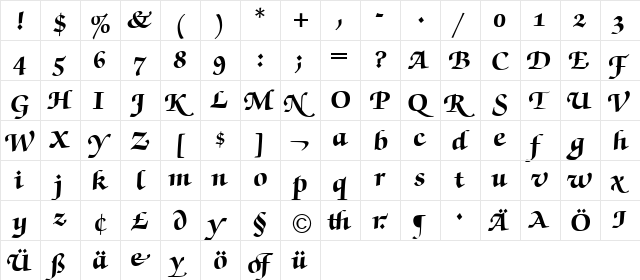
ZapfChancerySwashBQ-Bold Medium
Design Context for ZapfChancerySwashBQ-Bold Typeface
ZapfChancerySwashBQ-Bold flows with the natural rhythm of handwritten lettering, making it ideal for designs that call for warmth and personal expression. Its bold stroke weight gives it real presence on the page.
Font Pairing: Combine ZapfChancerySwashBQ-Bold with a simple geometric sans for maximum contrast — the tension between flowing curves and clean structure is a classic typographic pairing.
Pro Tip: Use ZapfChancerySwashBQ-Bold for short runs of text — names, titles, or taglines. Extended body copy in script faces tires the eye quickly.